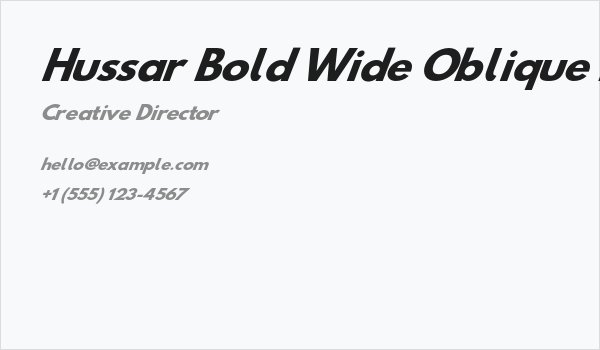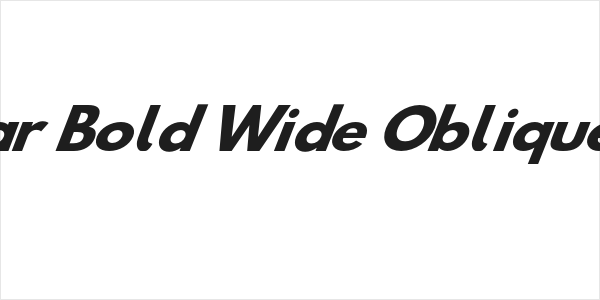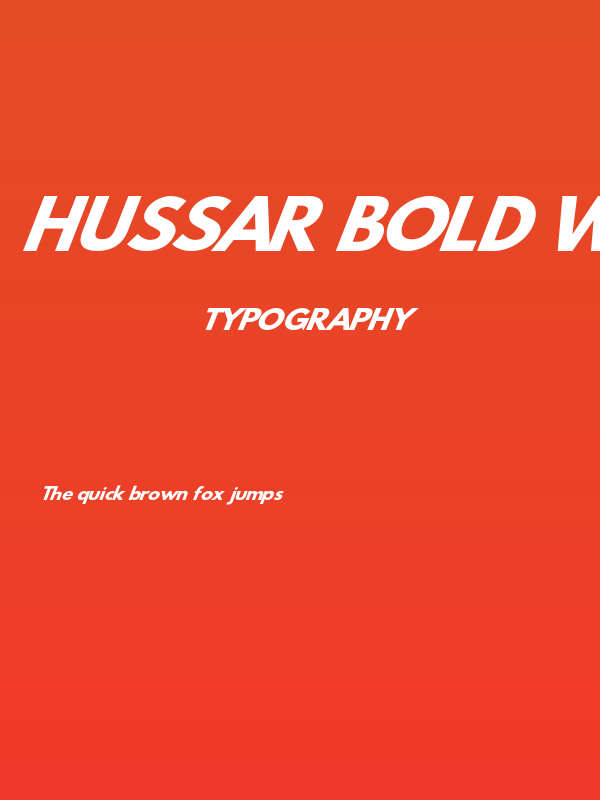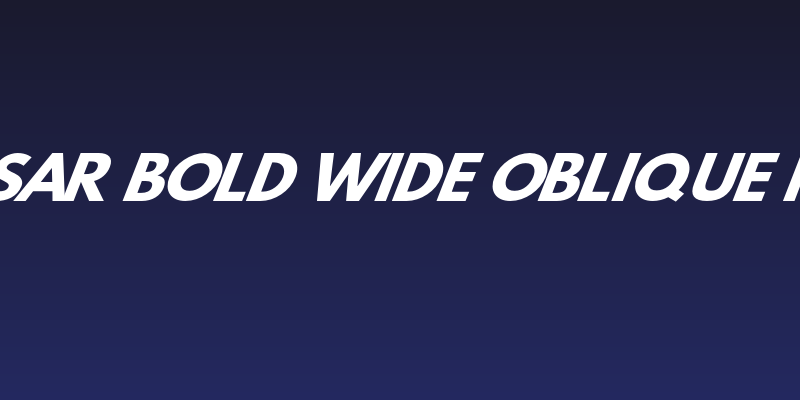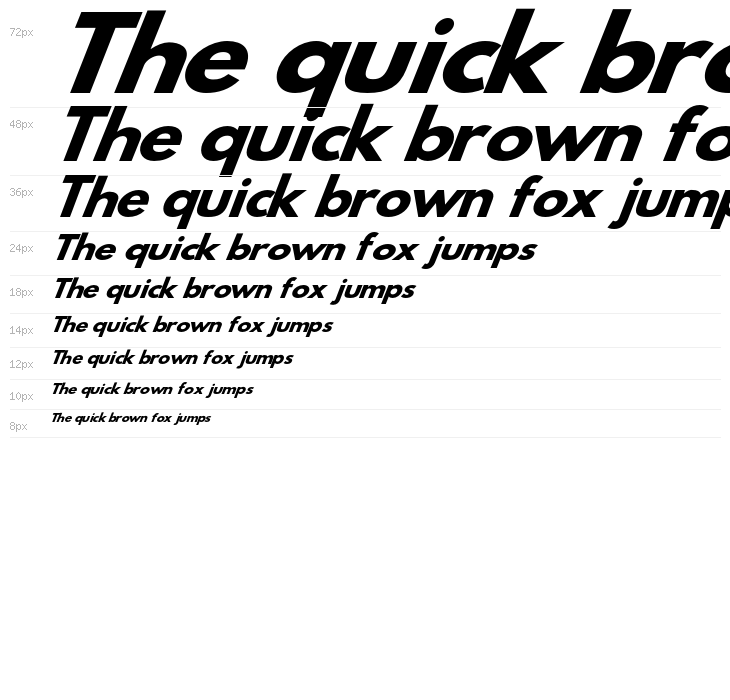
Hussar Bold Wide Oblique Four Font
Hussar Bold Wide Oblique Four Description
This font exhibits a bold and dynamic presence with its oblique style, giving it a forward-leaning, energetic appearance. The wide letterforms enhance its readability and make a strong visual impact. The uppercase and lowercase characters maintain a consistent slant, contributing to a cohesive and modern look. The numerals are equally bold and clear, ensuring they stand out in any context. Special characters are designed with the same attention to detail, providing a complete and versatile character set. The overall design is sleek and contemporary, making it suitable for various applications.
Proposed ProjectsIdeal for branding, advertising, headlines, and posters where a strong and modern impression is desired.